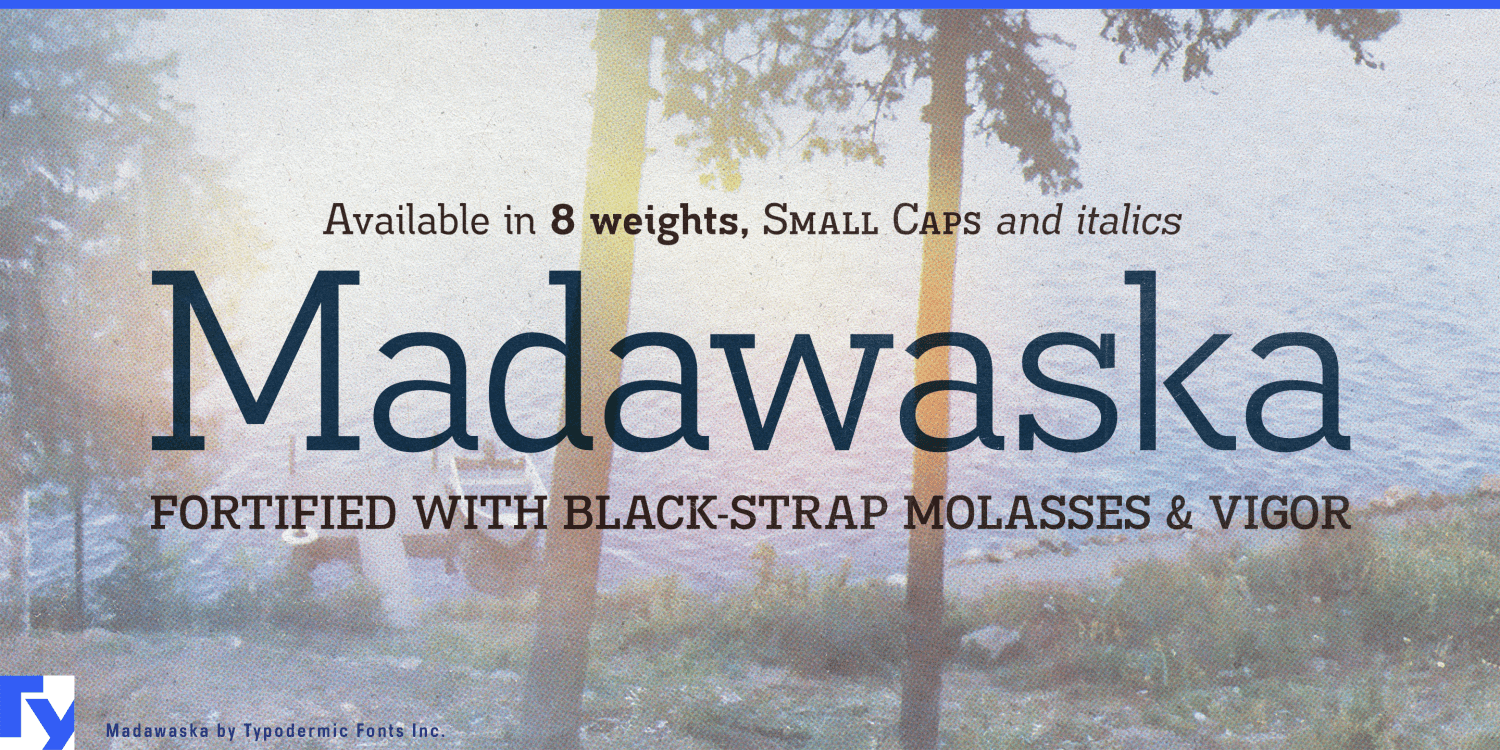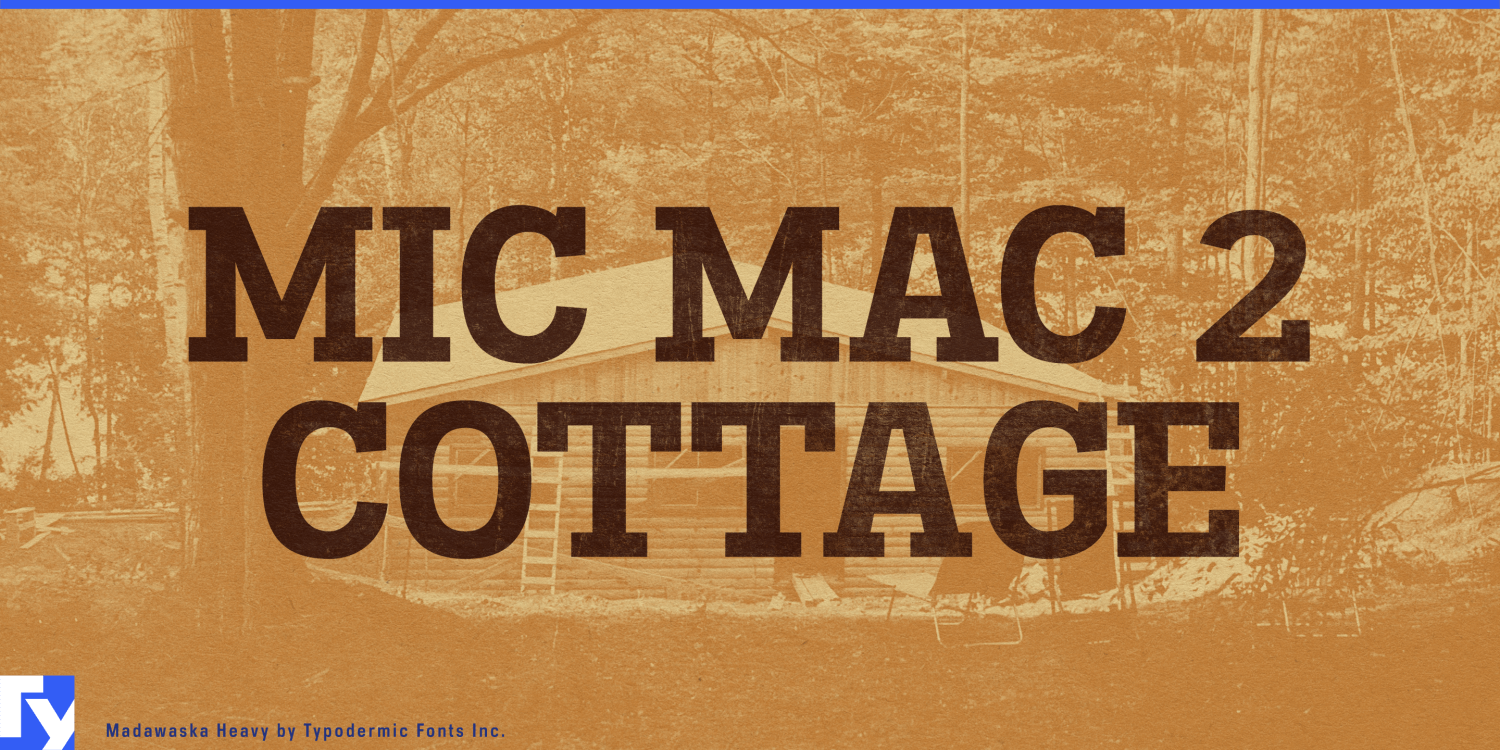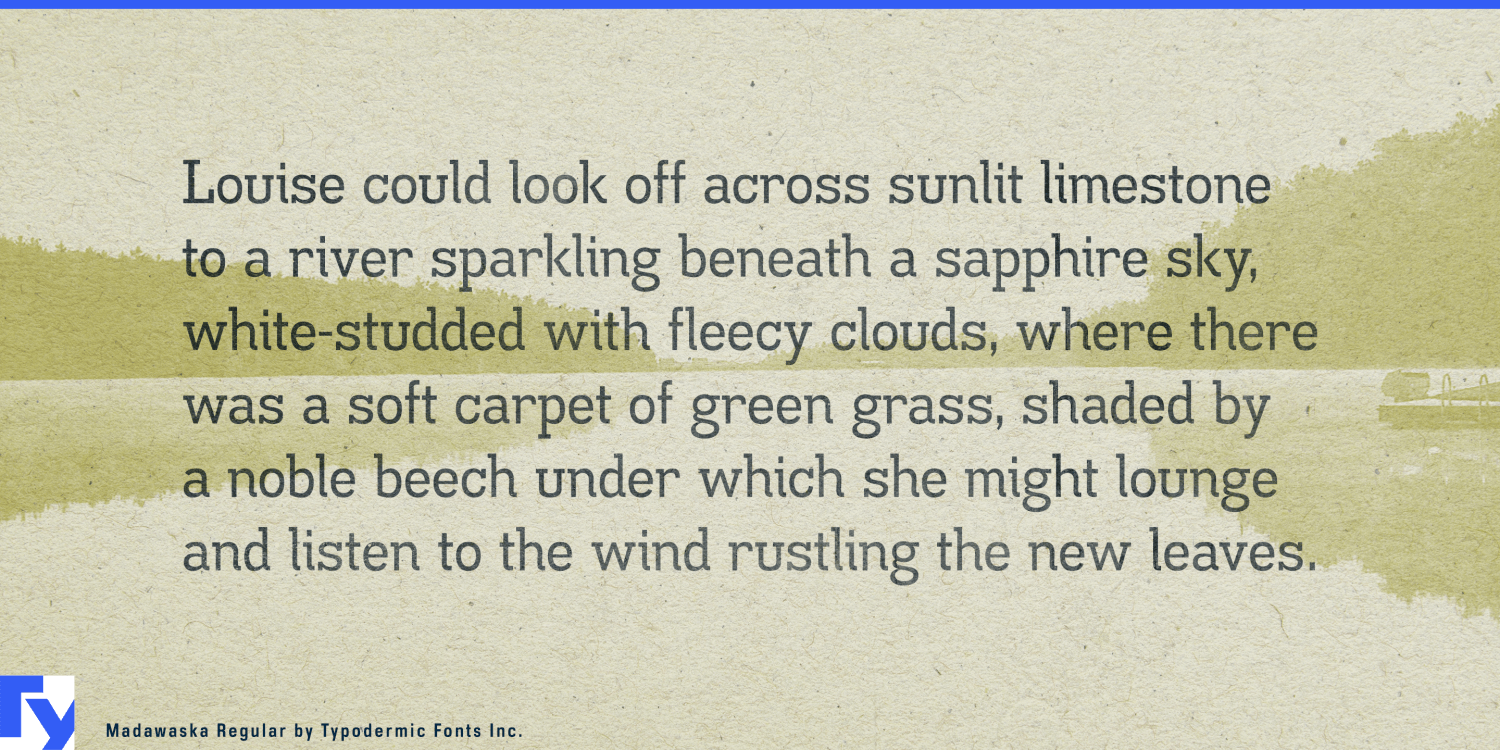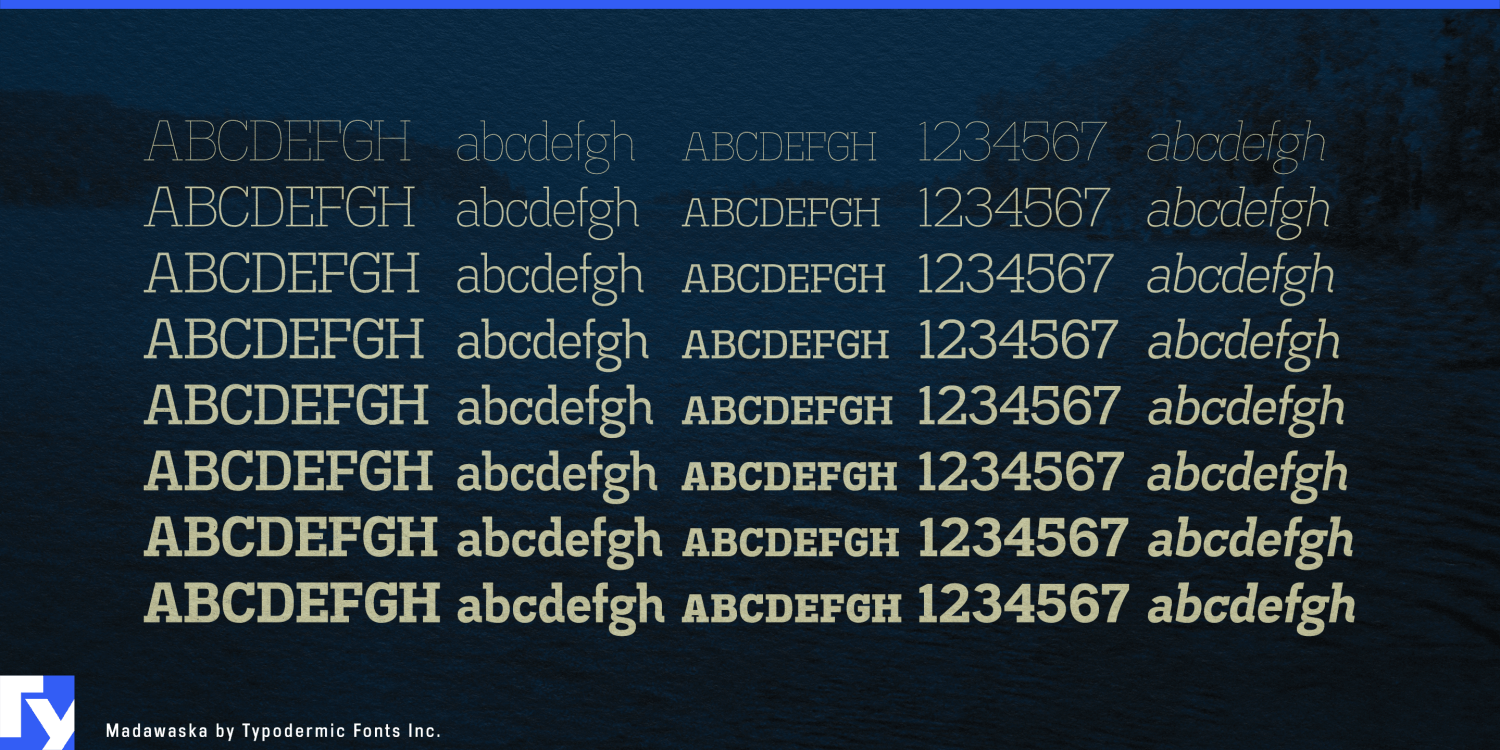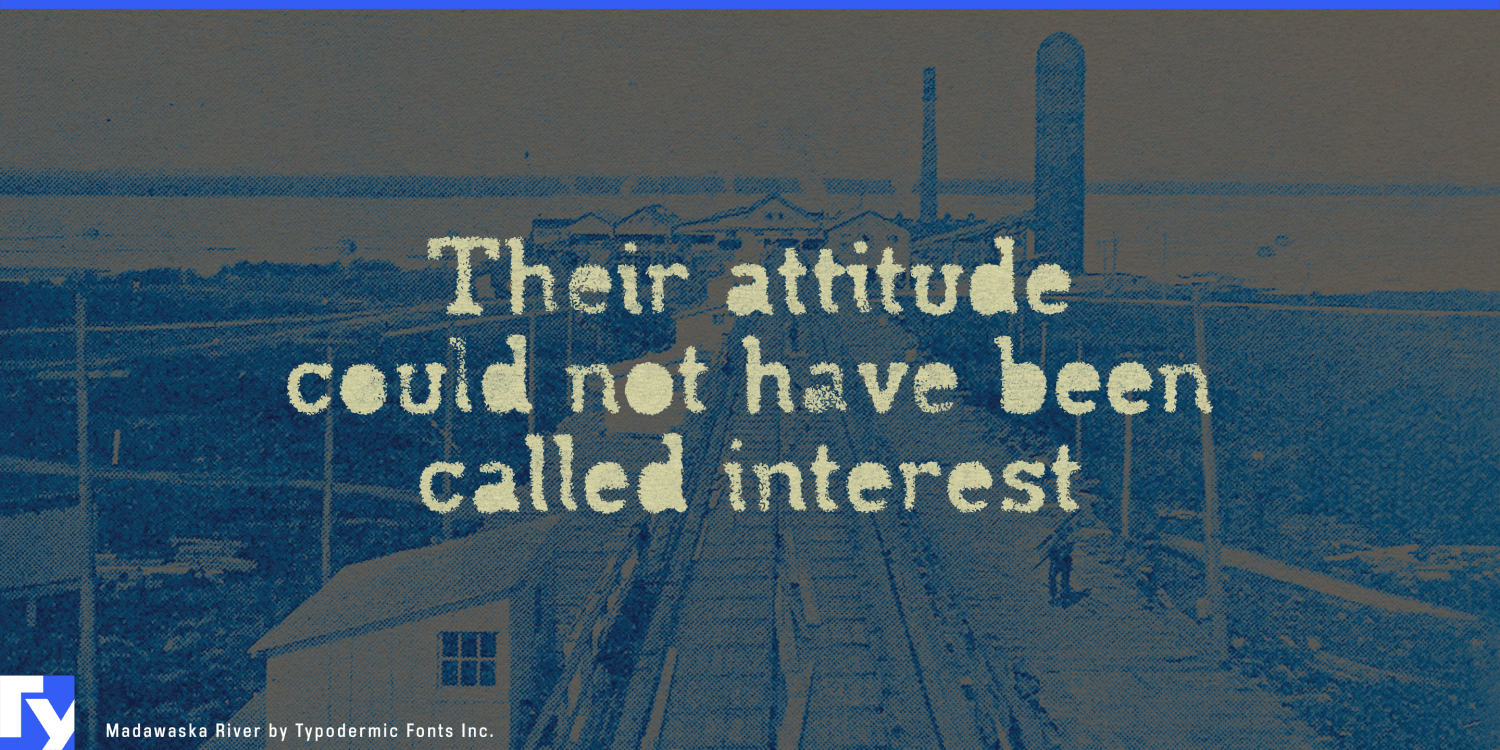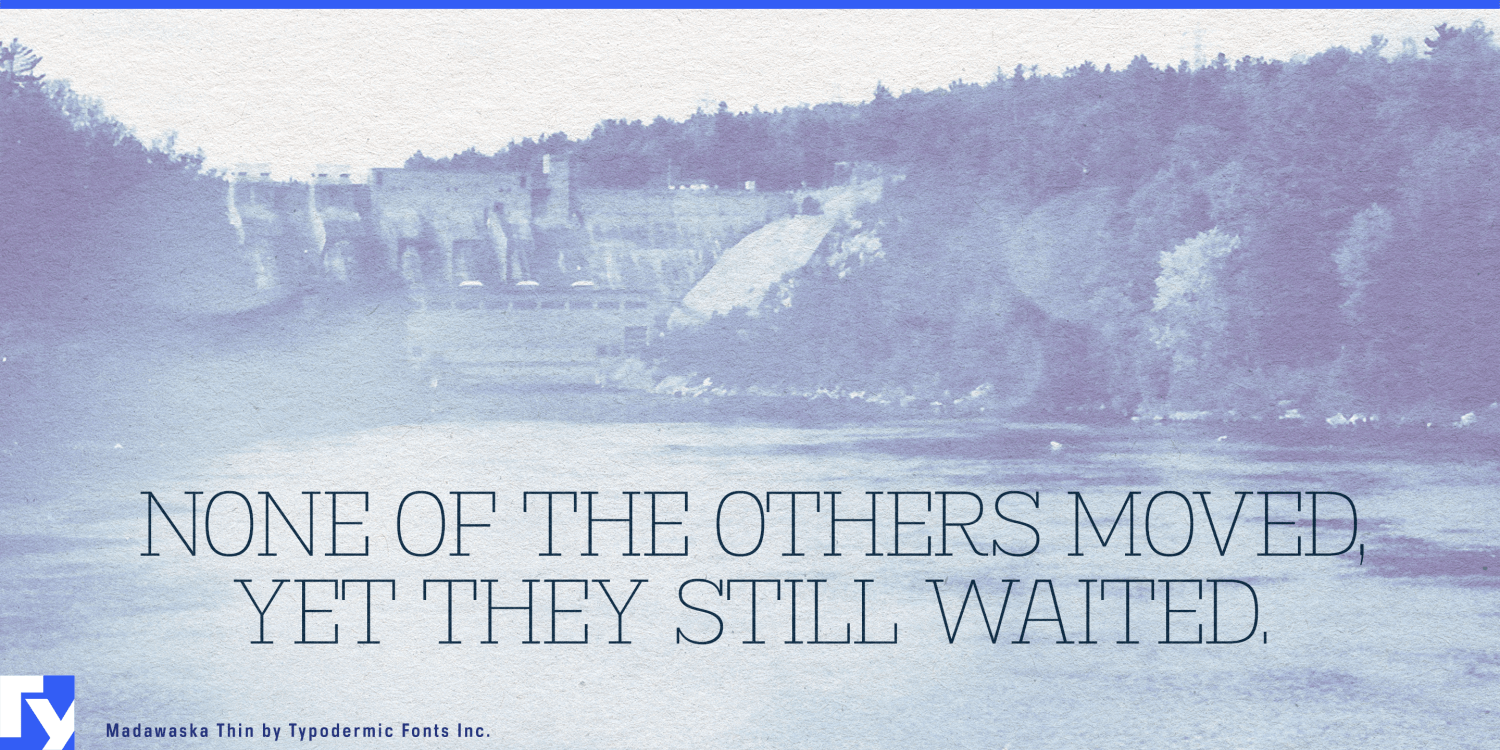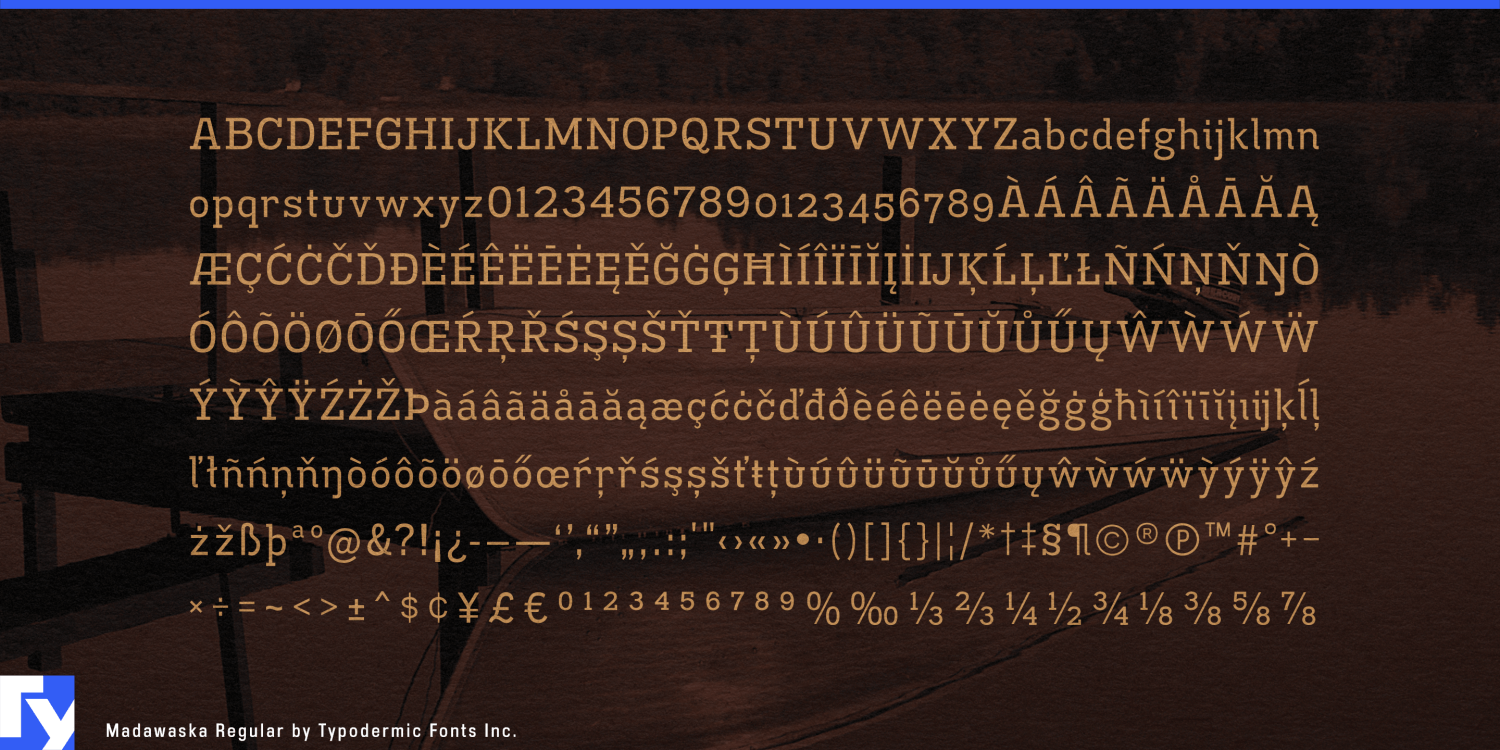
Madawaska
Madawaska is for outdoor brands that need the same rugged voice on the product name and the paragraph underneath it.
A display slab can look convincing on a canoe, jacket patch or catalogue cover, then become much less useful when the brand needs to explain construction, tell a field story or describe where the equipment is meant to go. Madawaska carries that character farther. Its sturdy slab-serif construction and unusual lowercase provide display presence, while the quieter weights settle naturally into longer copy.
Canoe, kayak and paddle manufacturers are a particularly good fit. Model families, hull descriptions, material stories, trip journals and dealer catalogues all need typography that can move between a large product name and detailed explanation. Madawaska can handle boat-series names and catalogue openers, then continue into copy about construction, water conditions or expedition use without introducing a separate editorial voice.
Fishing and fly-fishing brands face much the same problem. Rod and reel collections, river guides, field-test articles and lodge collaborations generate plenty of reading alongside product names. Small capitals provide another level for model categories, locations and other supporting information within the same family.
Ski, snowshoe and winter-recreation companies can use Madawaska for equipment names, trail stories, seasonal catalogues and archival collections without resorting to aggressive action-sports lettering or faux-rustic display type. Canvas tents, camp furniture, field cookware, packs and other durable outdoor equipment create a similar role across product-family names, field guides and journal content.
Heritage outdoor apparel fits when there is genuine history to communicate: field jackets, wool layers, fishing apparel, utility garments and archive reissues supported by hangtag stories, dealer books and product-history pages. Historic fishing lodges, canoe outfitters, mountain inns, ski lodges and lakeside resorts can extend the same voice through activity guides, trail sheets, room literature and seasonal publications.
Parks, visitor centres and heritage institutions provide a related application for interpretive panels, exhibit headings, captions and guidebooks, while long-established equipment manufacturers can use Madawaska to bridge archival photography and contemporary anniversary material.
Madawaska works best when the identity has more to say than a headline. It can put the name on the canoe, the title on the catalogue and the story on the next page without changing its accent.